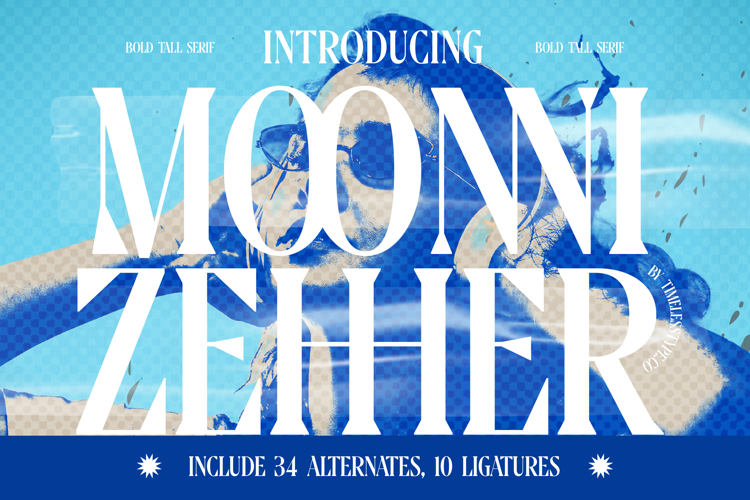
Moonni Zehher - Bold Tall Serif
Demand attention with unparalleled vertical drama. Introducing Moonni Zehher - Bold Tall Serif, a display typeface engineered for maximum visual impact and sophistication. This font masterfully blends historical serif elegance with contemporary, exaggerated height, resulting in letters that are both commanding and highly refined. Its bold stroke weight ensures it never fades into the background, making it an essential tool for impactful headlines and large-scale editorial statements.
Unlock endless creative potential with precision-crafted resources. Moonni Zehher - Bold Tall Serif comes equipped with an impressive suite of open-type features, including 34 stylistic alternates and 10 dynamic ligatures, allowing designers to sculpt truly unique logotypes and text layouts. With its extensive multilingual support, Moonni Zehher - Bold Tall Serif adapts seamlessly across global markets, making it incredibly versatile for international projects and ensuring worldwide brand consistency.
Define your brand's presence in the most competitive sectors. This font is the perfect choice for high-end luxury branding, sophisticated beauty packaging, and prestige editorial layouts. The stately presence of Moonni Zehher - Bold Tall Serif is specifically calibrated to elevate product presentation, making it perfect for fashion magazine titles, exclusive event invitations, high-contrast posters, and distinctive identity design that requires an immediate sense of exclusivity and premium quality.